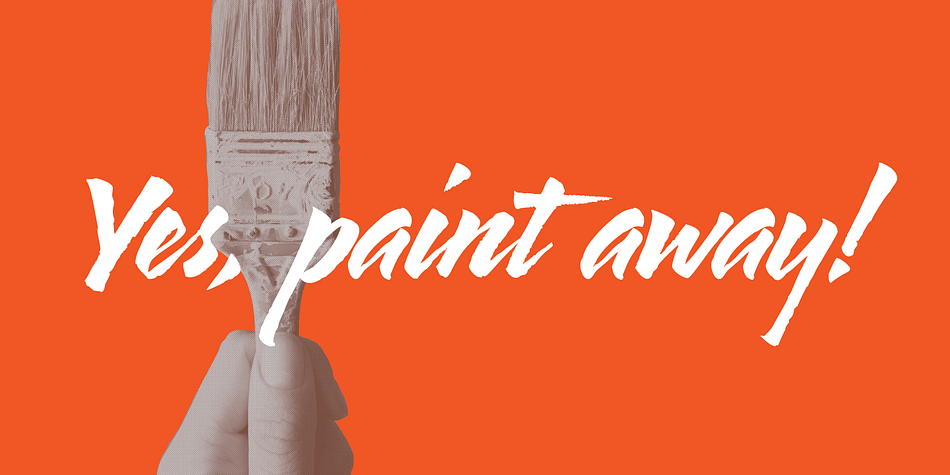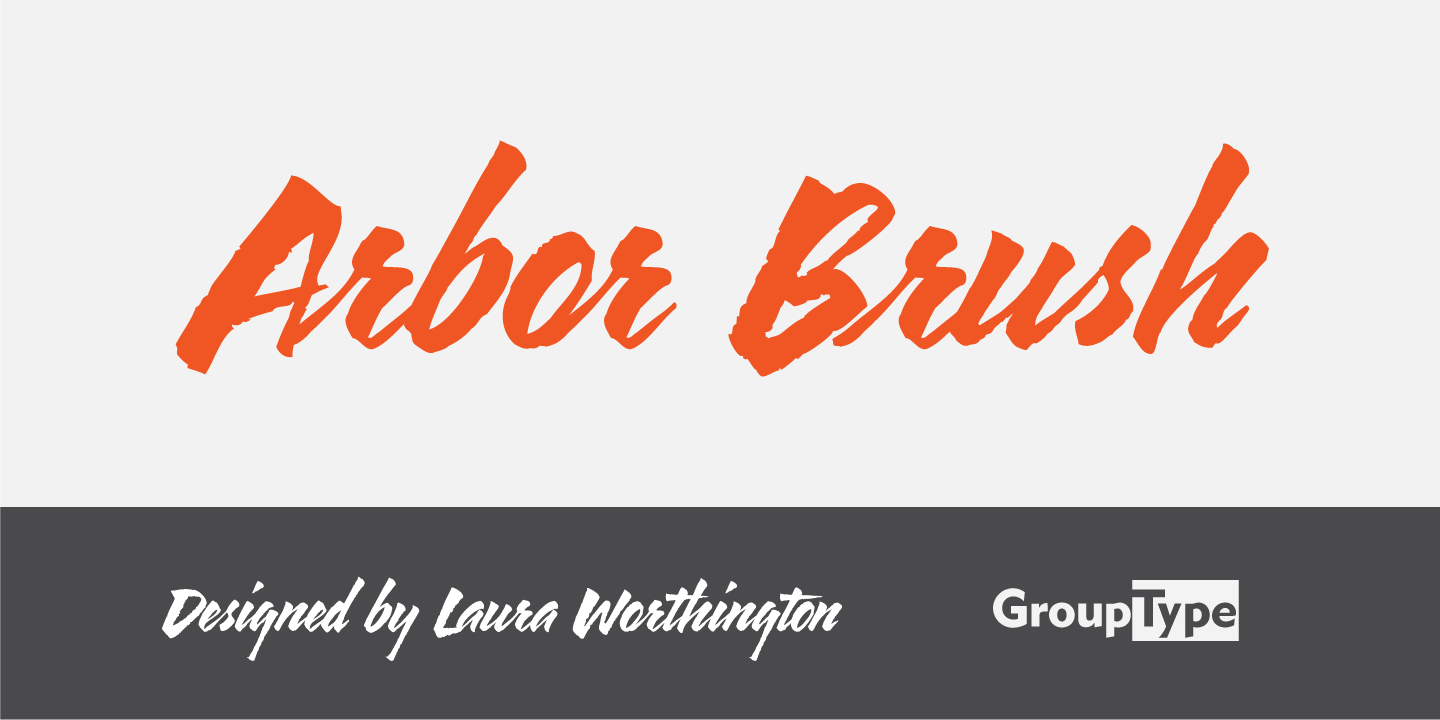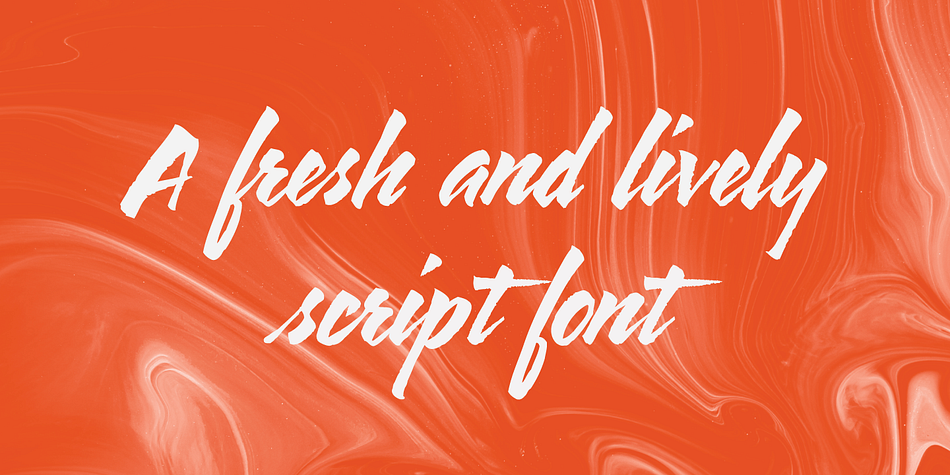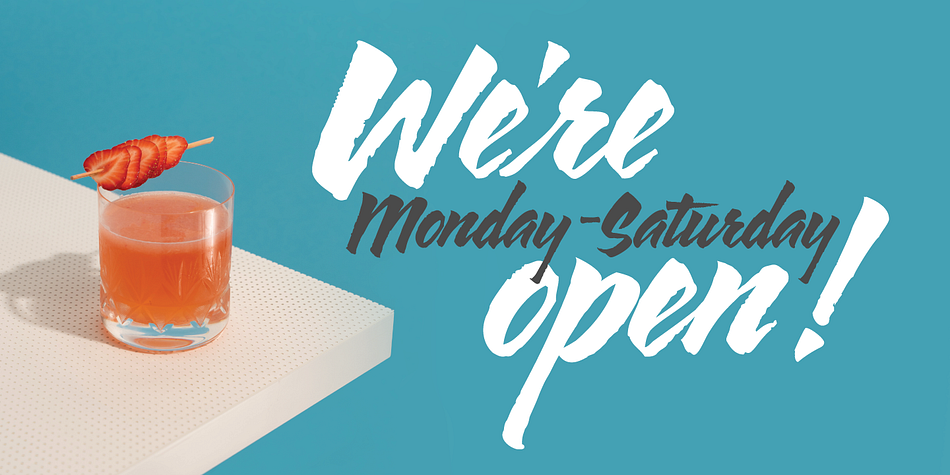
Arbor Brush
Arbor Brush is a brush display and hand drawn font published by FontHaus.
Arbor Brush is a fresh and lively brush script from the GroupType design studio. The design is organic, strong, painterly, and anything but tentative. With loads of alternate glyphs, Arbor Brush is great for advertising, headlines, menus, signage, packaging or posters. Remarkably readable at small sizes and on screen as a web font.